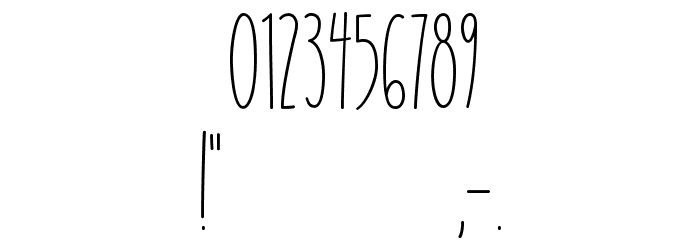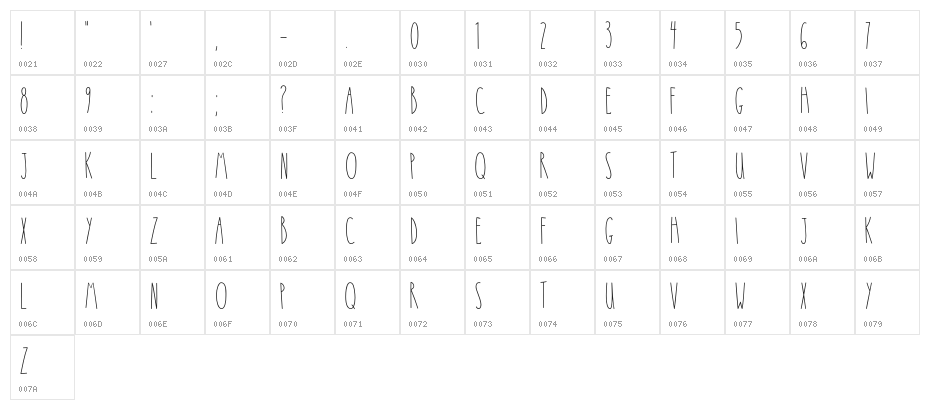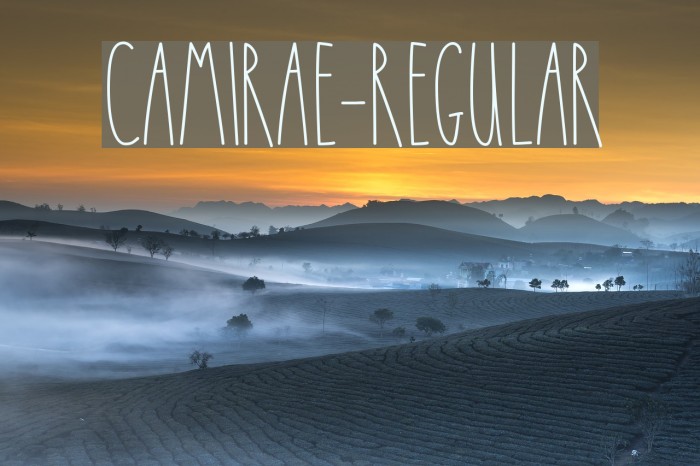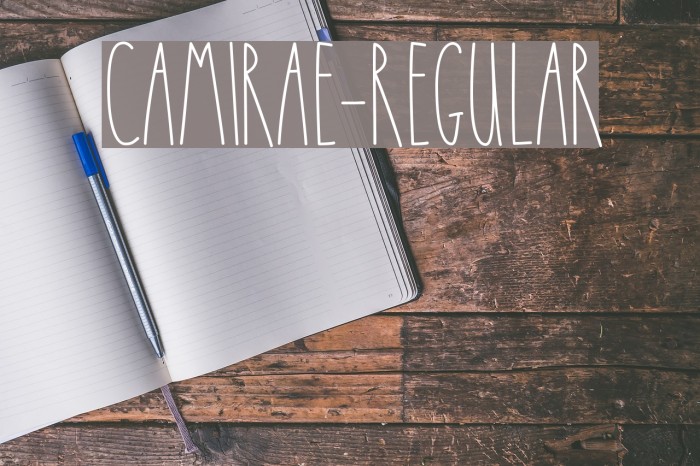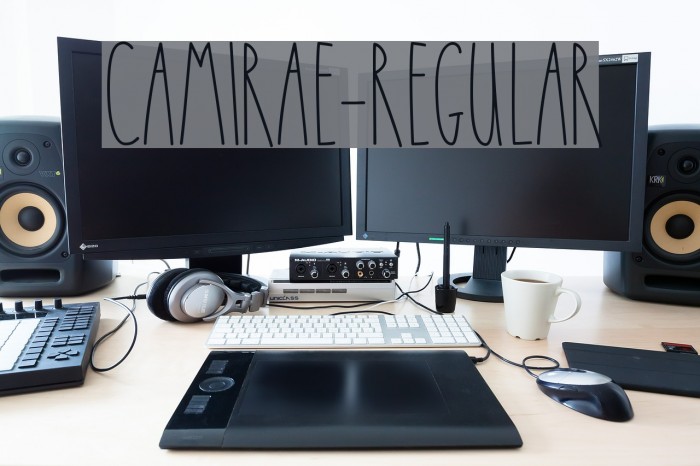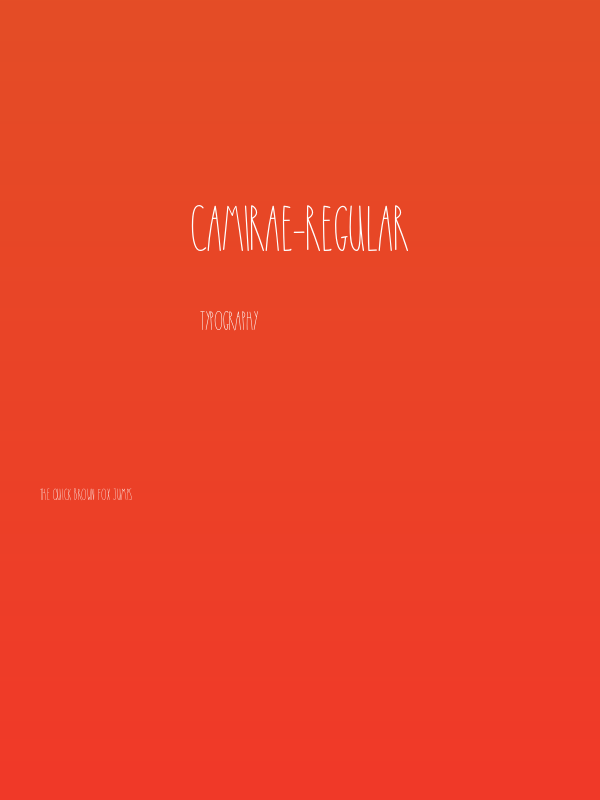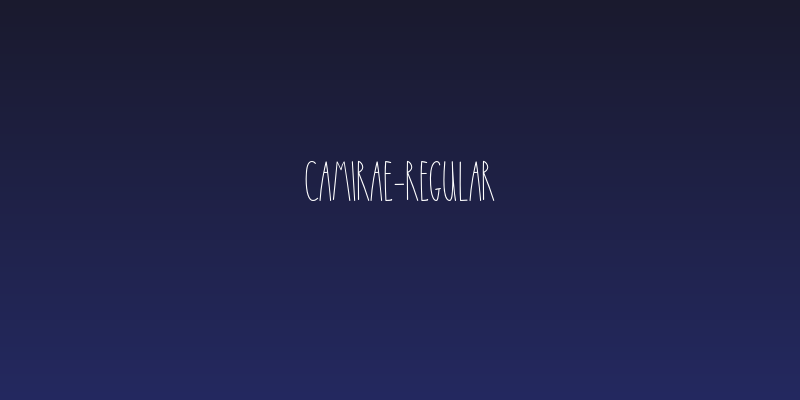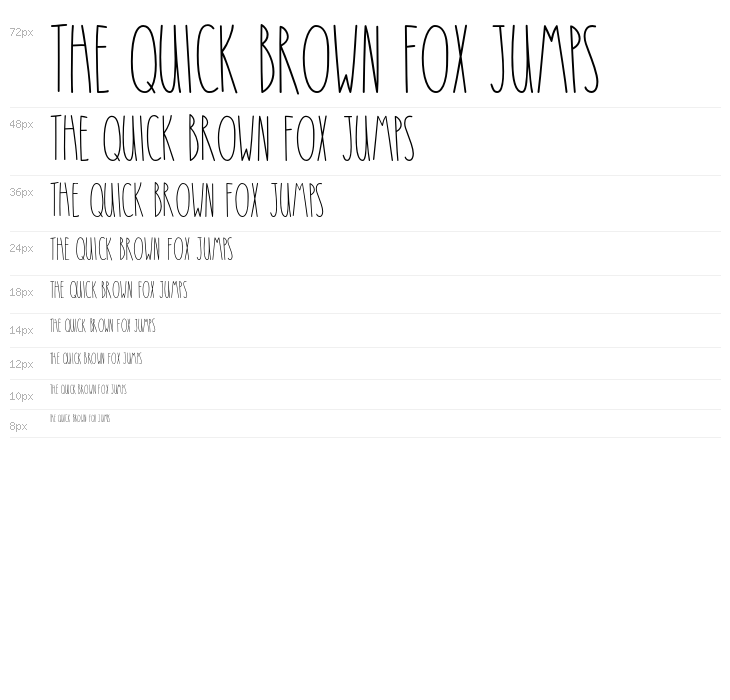
CamiRae-Regular Font
CamiRae-Regular Description
This font features a tall and narrow design, characterized by its elongated letterforms and minimalistic style. The strokes are consistent in width, giving it a clean and modern appearance. The uppercase and lowercase letters maintain a uniform height, contributing to its sleek and streamlined look. The numbers and special characters follow the same design principles, ensuring a cohesive visual identity. This font's simplicity and elegance make it versatile for various design applications, where a contemporary and stylish touch is desired.
| Proposed Projects | Ideal for branding, packaging, posters, and editorial design where a modern and elegant aesthetic is required. |